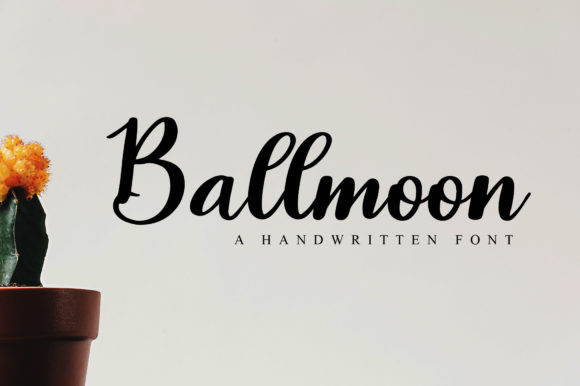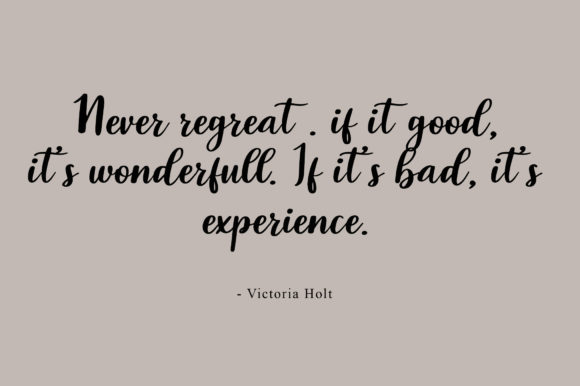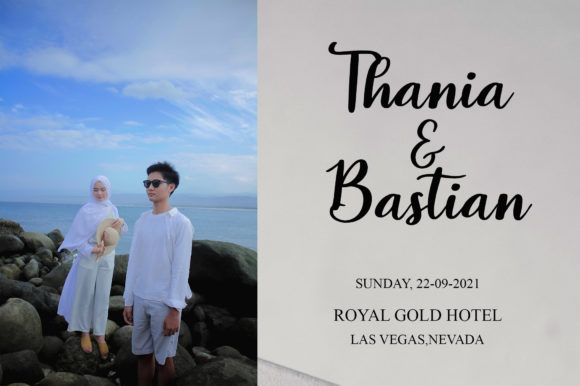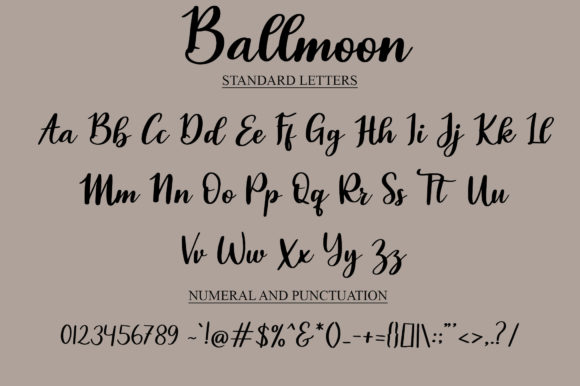
Ballmoon Font
About Ballmoon Font
Ballmoon is a chic, refined script font that emanates sophistication and elegance. Its stylish alternates and ligatures make this font the perfect match for any project.